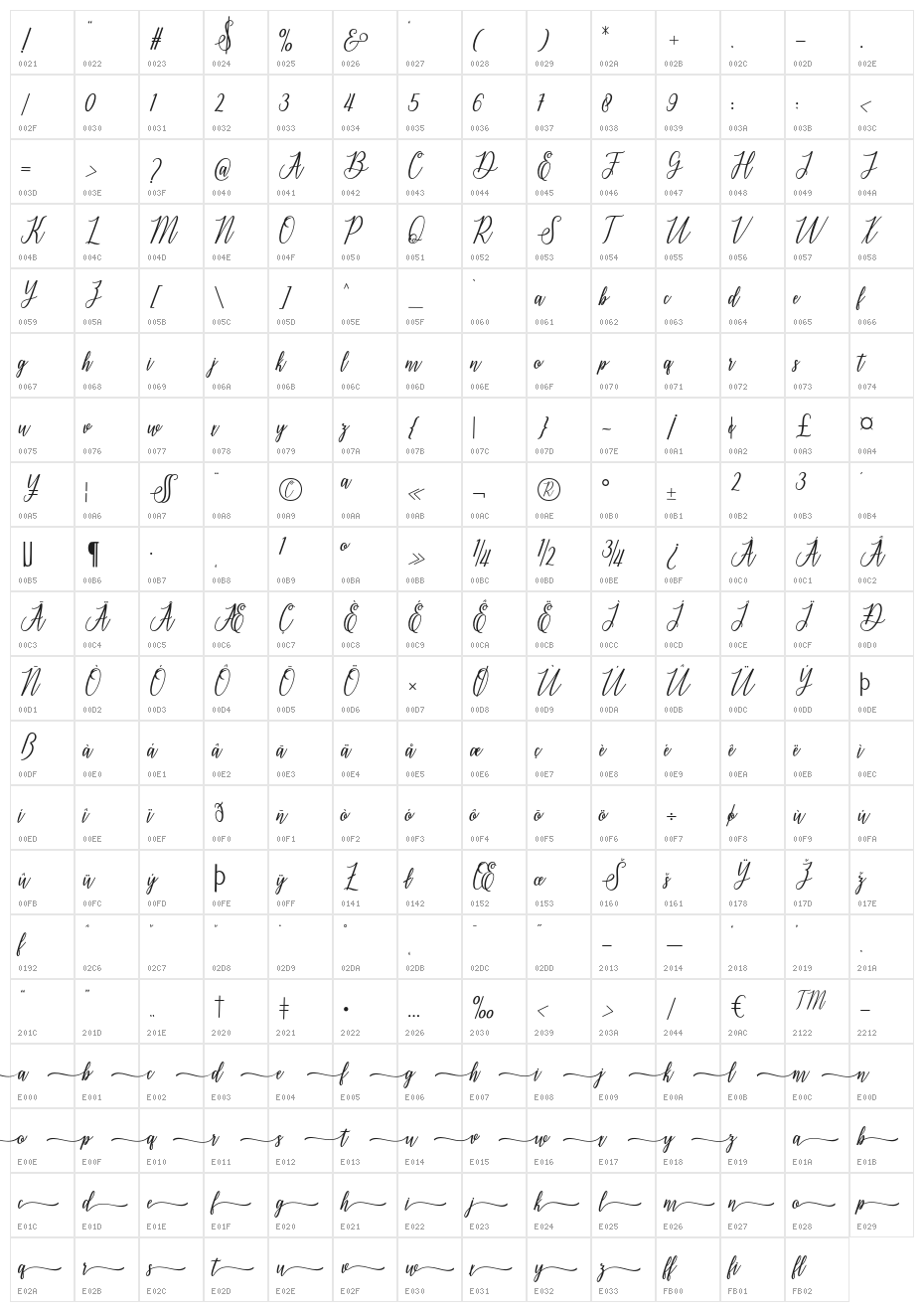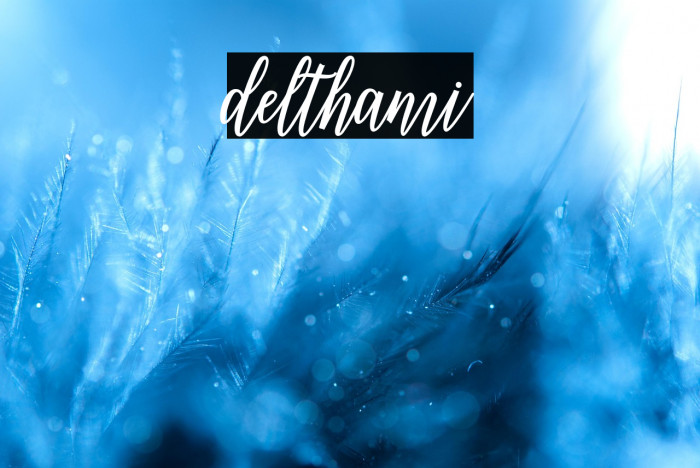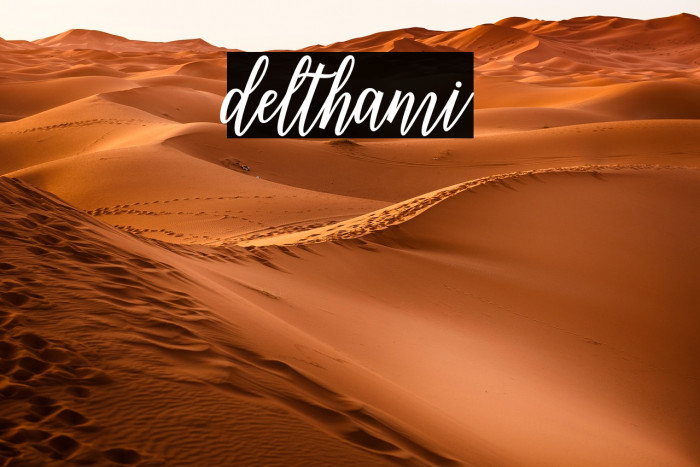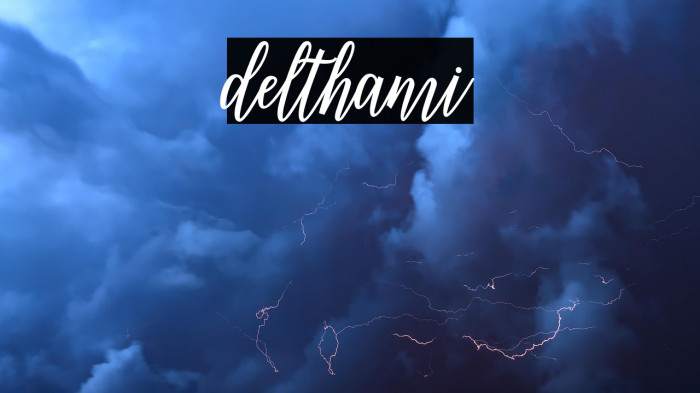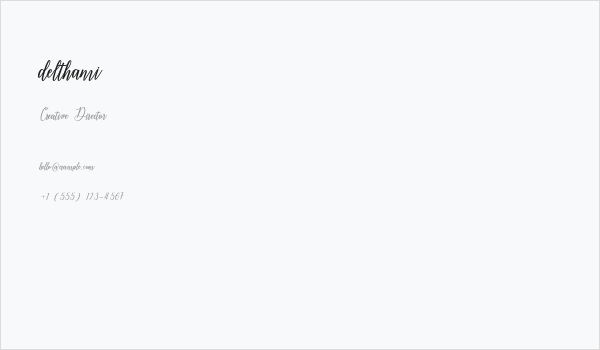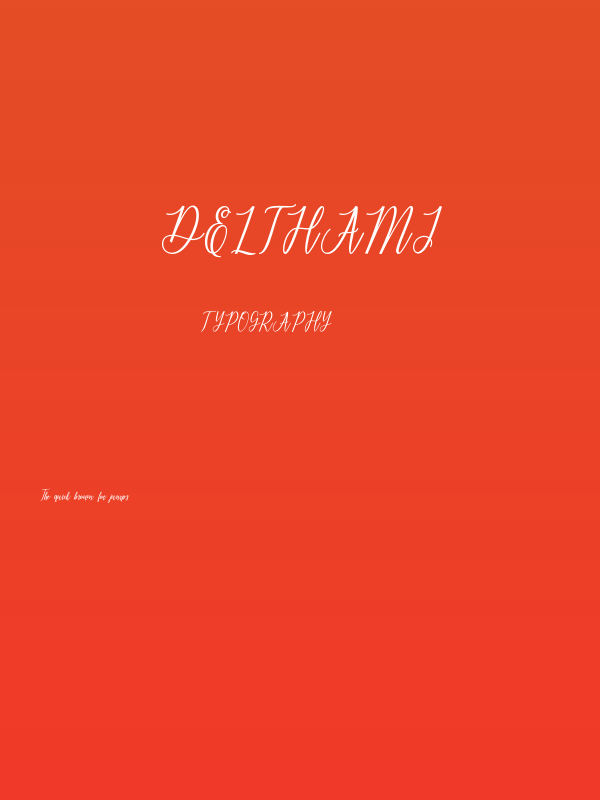
delthami Font
delthami Description
This elegant script font features flowing, cursive letters with a sophisticated and graceful appearance. The uppercase letters are ornate and slightly elongated, giving a sense of formality and style. The lowercase letters maintain a consistent flow, enhancing readability while retaining an artistic flair. The numerals are designed to match the overall aesthetic, with a slight slant and decorative curves. Special characters are included, complementing the font's refined look. This font is ideal for projects that require a touch of elegance and class.
| Proposed Projects | Wedding invitations, elegant branding, luxury product packaging, formal event programs. |